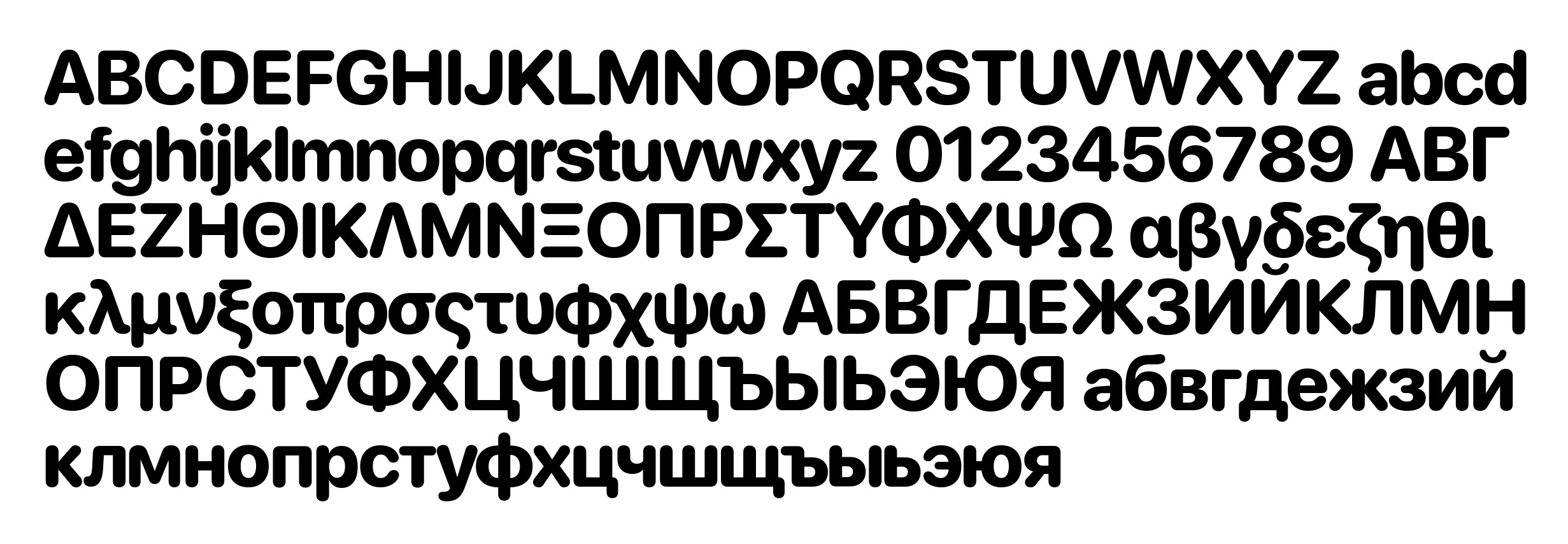
Sadly, The Original San Francisco Font Was A Bitmap Typeface.
You can use these fonts to get the exact look and feel for all your app development projects. The san francisco font mimicked a ransom note in its first iteration and was used both in early apple demos and advertising flyers. You can use sf symbols to represent tasks and types of content in a variety of ui.
This Neutral, Flexible, Sans Serif Typeface Is The System Font For Ios, Ipad Os, Macos And Tvos.
It Is The First Font That Was Designed At Apple.